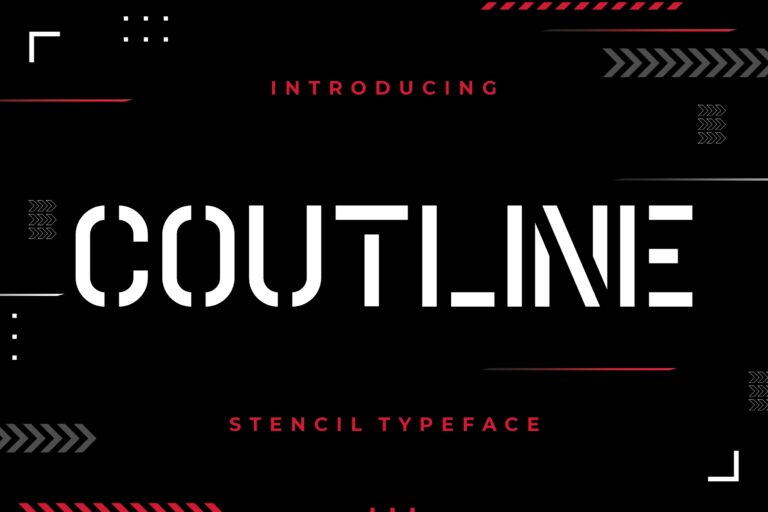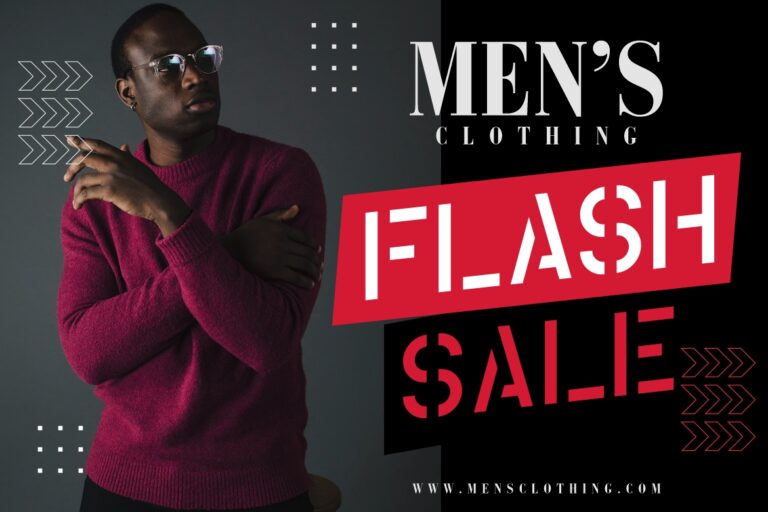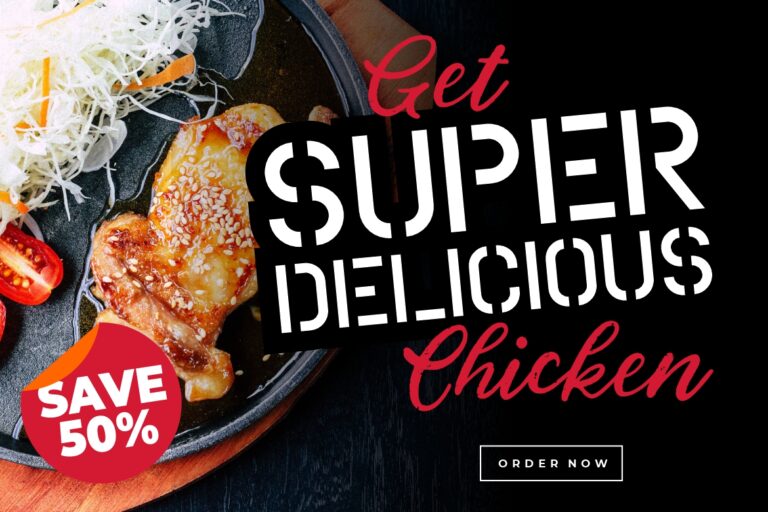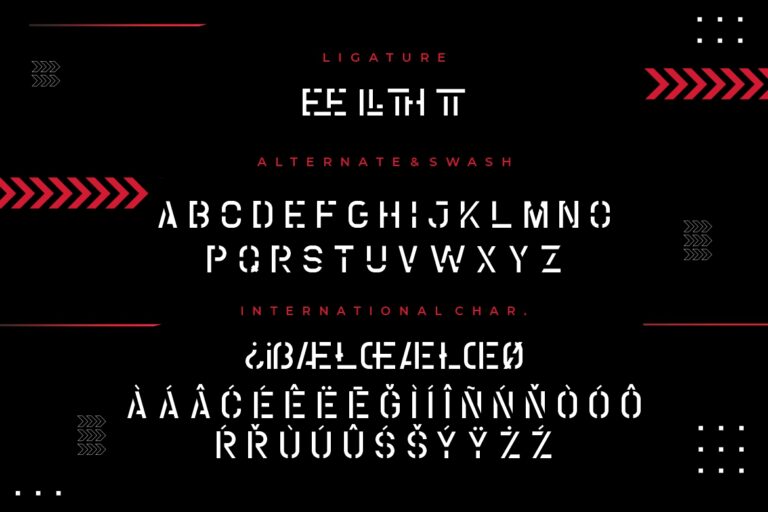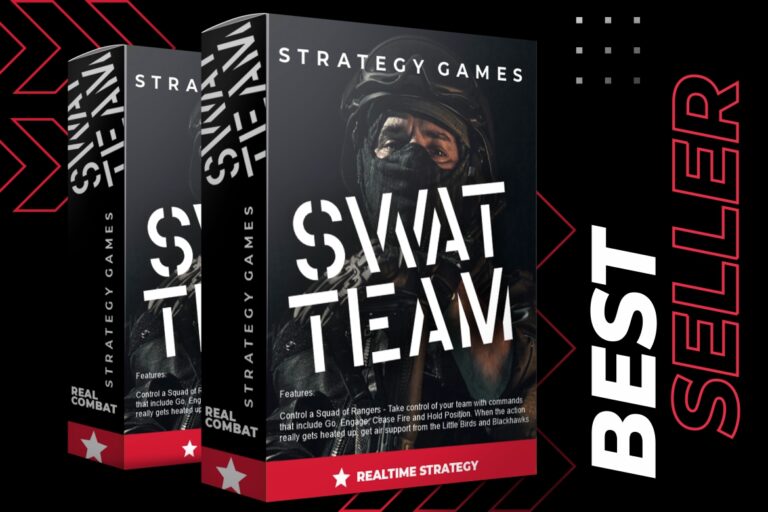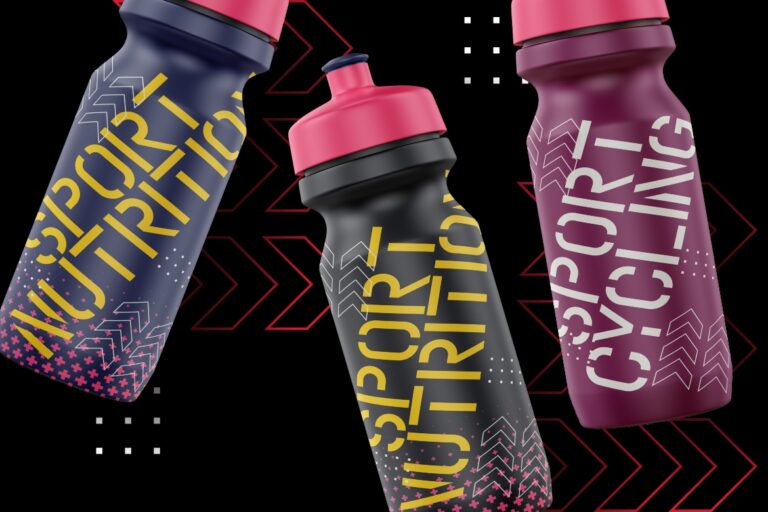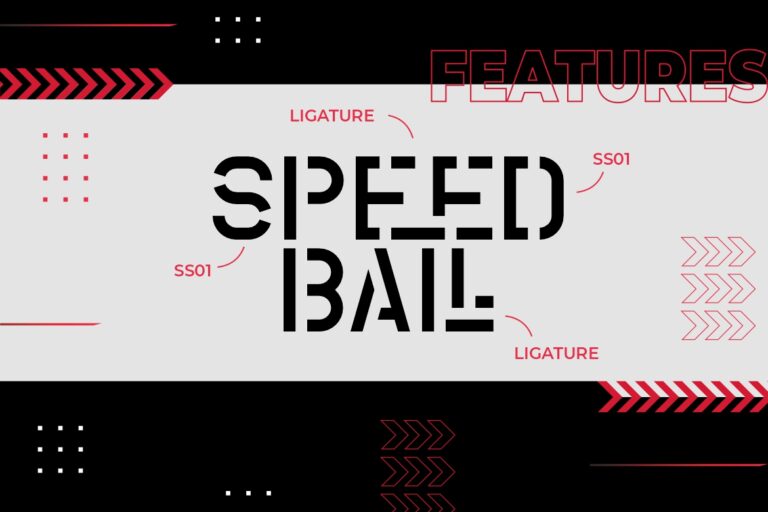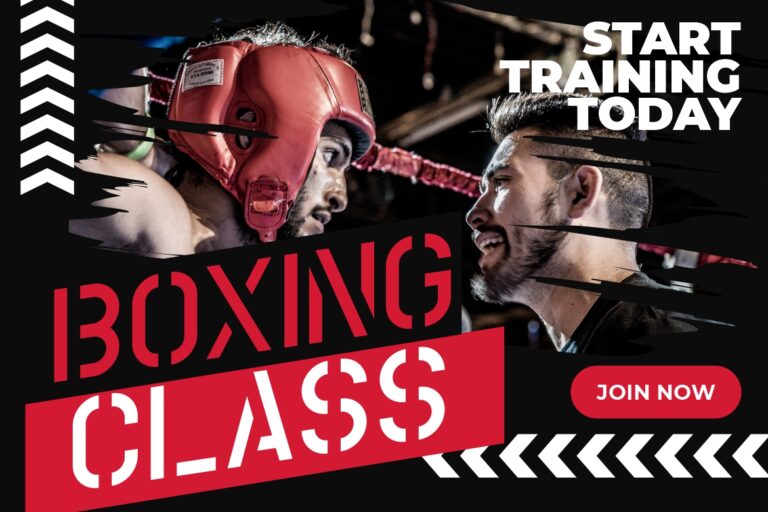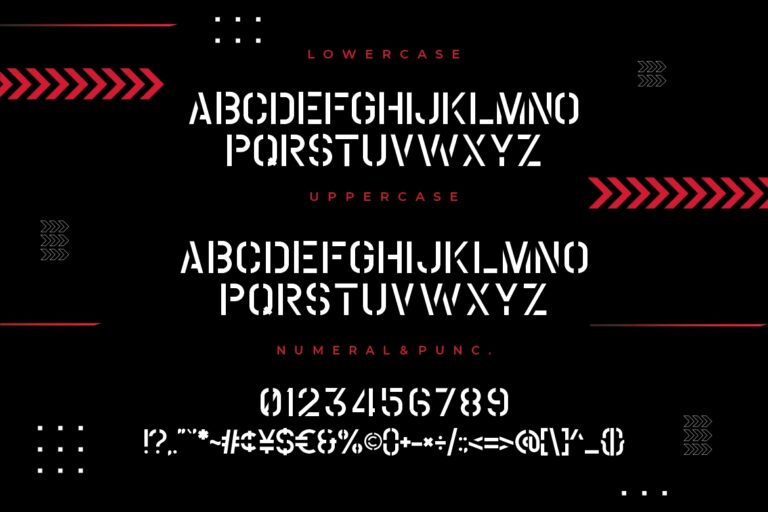
Coutline is an all caps stencil display font Sans-Serif that inspired by military design and urban graffiti.
Coutline would perfect for photography, watermark, social media posts, advertisements, logos & branding, invitation, product designs, label, stationery, wedding designs, product packaging, special events or anything that need handwriting taste.
Coutline Stencil Typeface